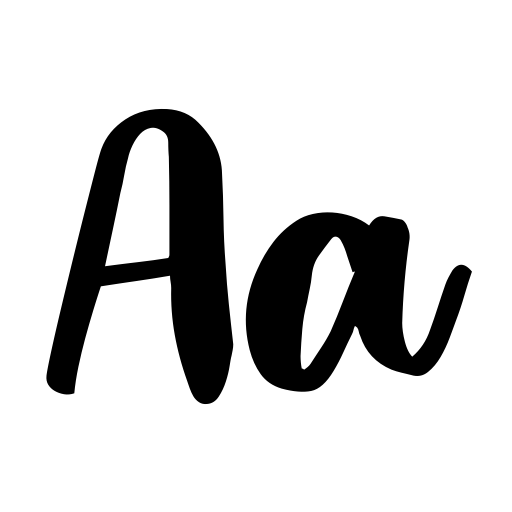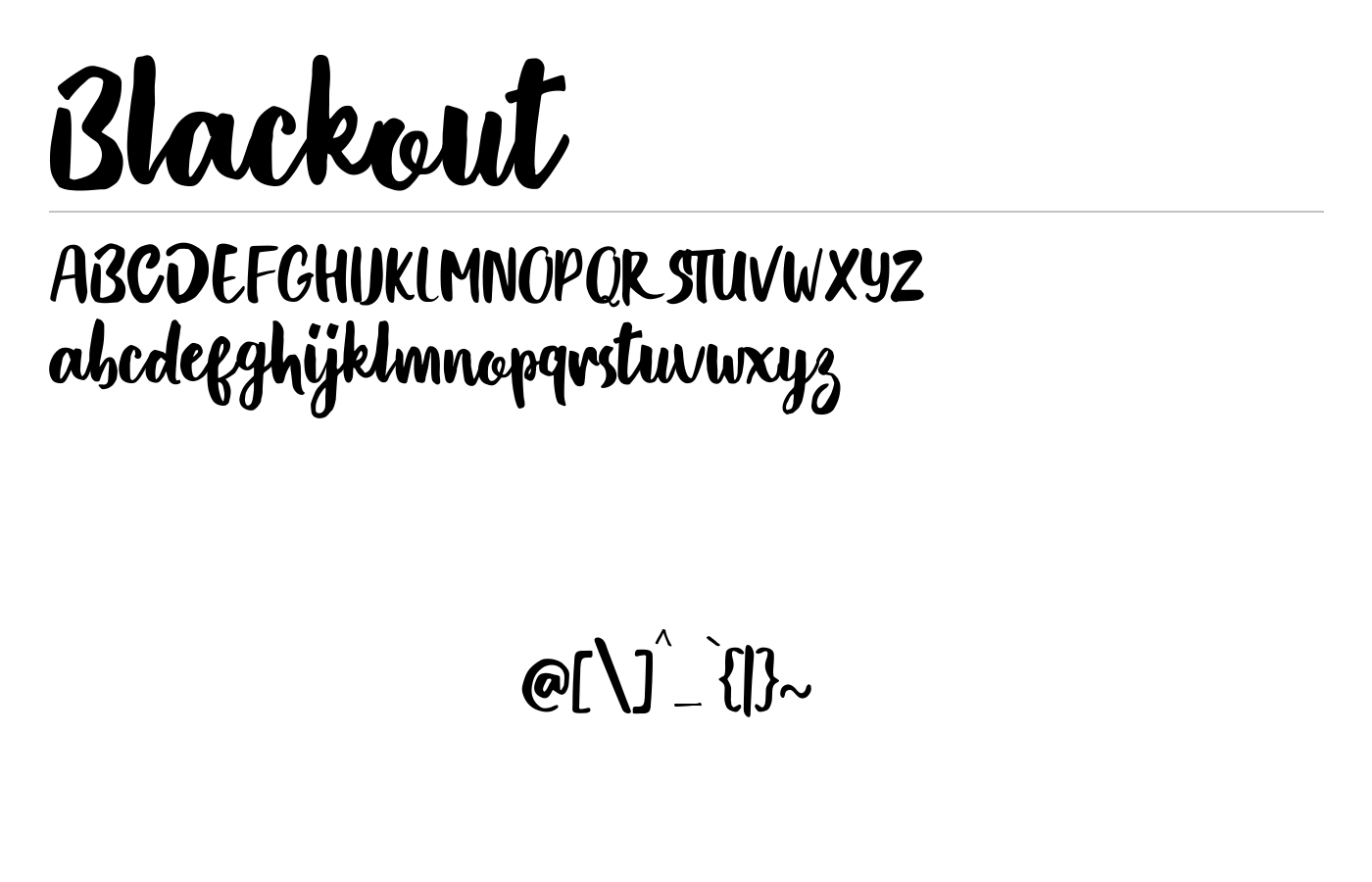
Blackout Font is a bold, lively script typeface with a hand-painted feel, featuring thick strokes and a casual, playful style. Its rounded, flowing letterforms and consistent stroke weight create a friendly and approachable vibe, making it perfect for informal branding, invitations, and creative headlines. This font works well where a personal, energetic touch is desired, adding warmth and character to design projects.
Blackout Font
About Blackout Font
| Font family | Blackout Font |
| Designer | Zulfan Iskandar |